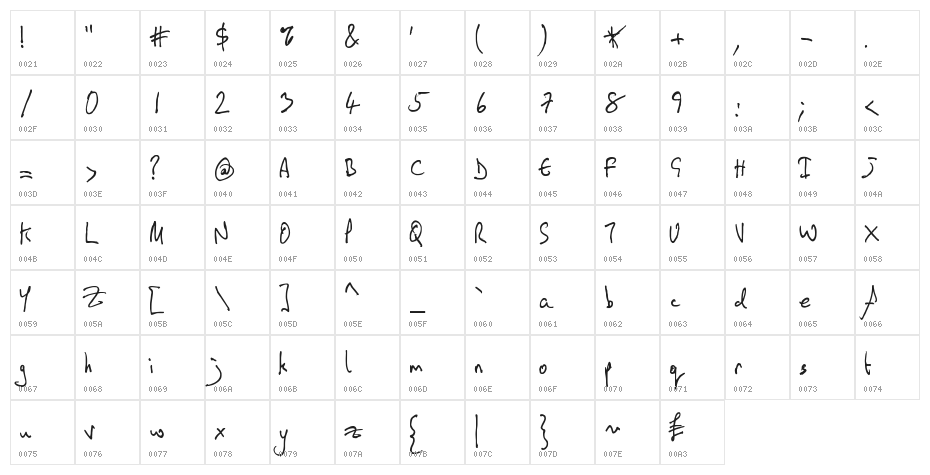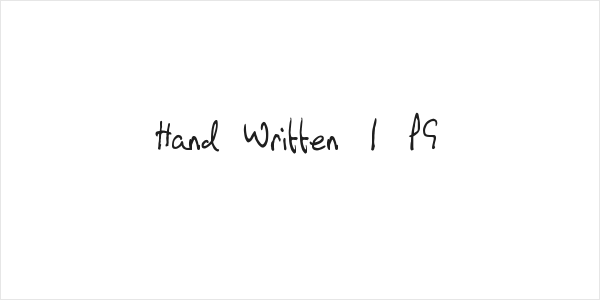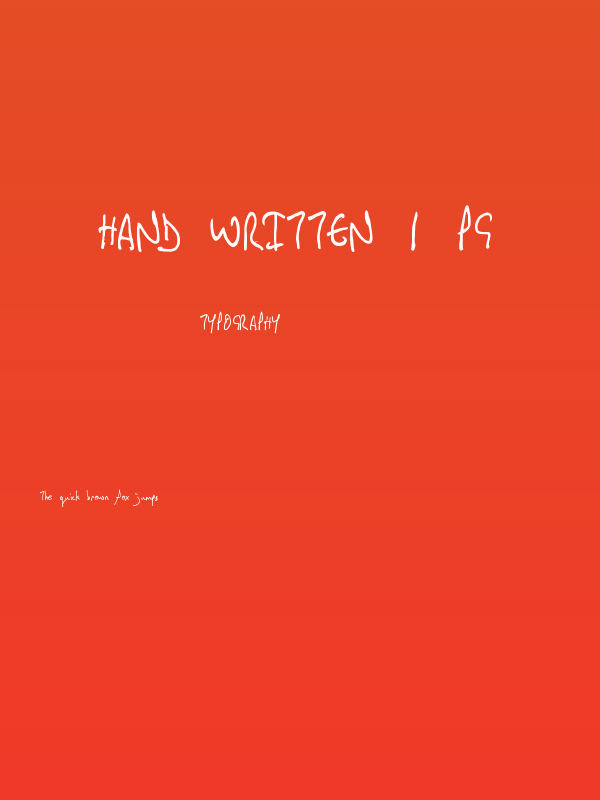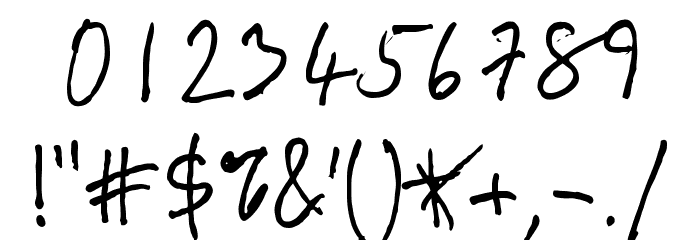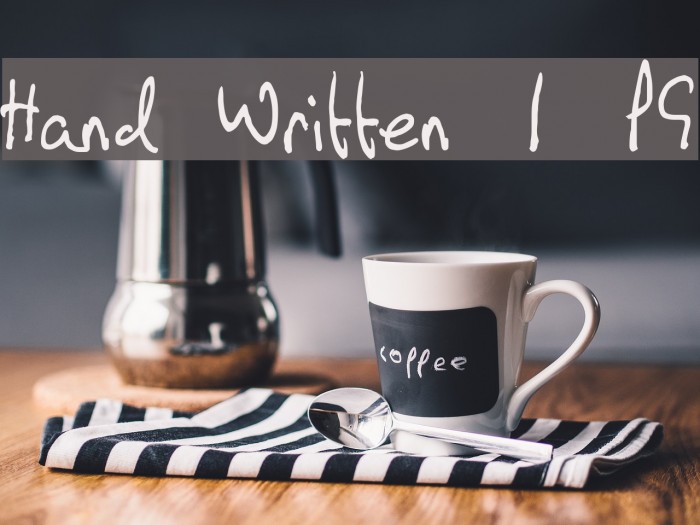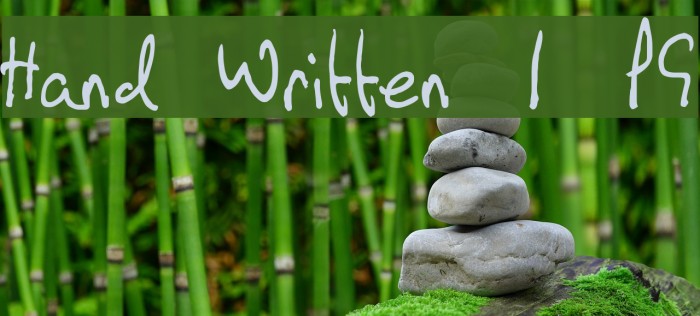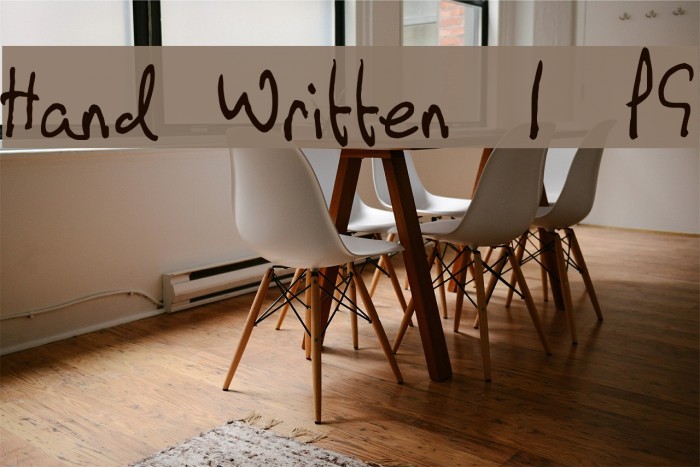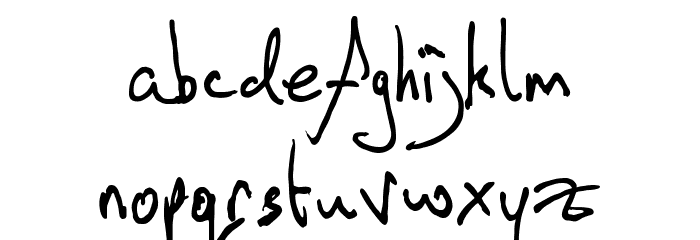
Hand Written 1 PG Font
This font exudes a casual, hand-drawn aesthetic, characterized by its irregular strokes and playful curves. The uppercase letters are bold and slightly uneven, giving a sense of spontaneity and energy. Lowercase letters maintain a consistent flow, with some characters featuring unique flourishes that add personality. Numbers are clear and legible, while special characters retain the same hand-crafted charm. The overall appearance is informal and artistic, making it ideal for projects that require a personal touch or a creative flair.
| Overall Style | Casual, Artistic |
| Use Case | Logos, Posters, Personal notes |
| Proposed Projects | Ideal for greeting cards, personal notes, artistic posters, and creative branding. |